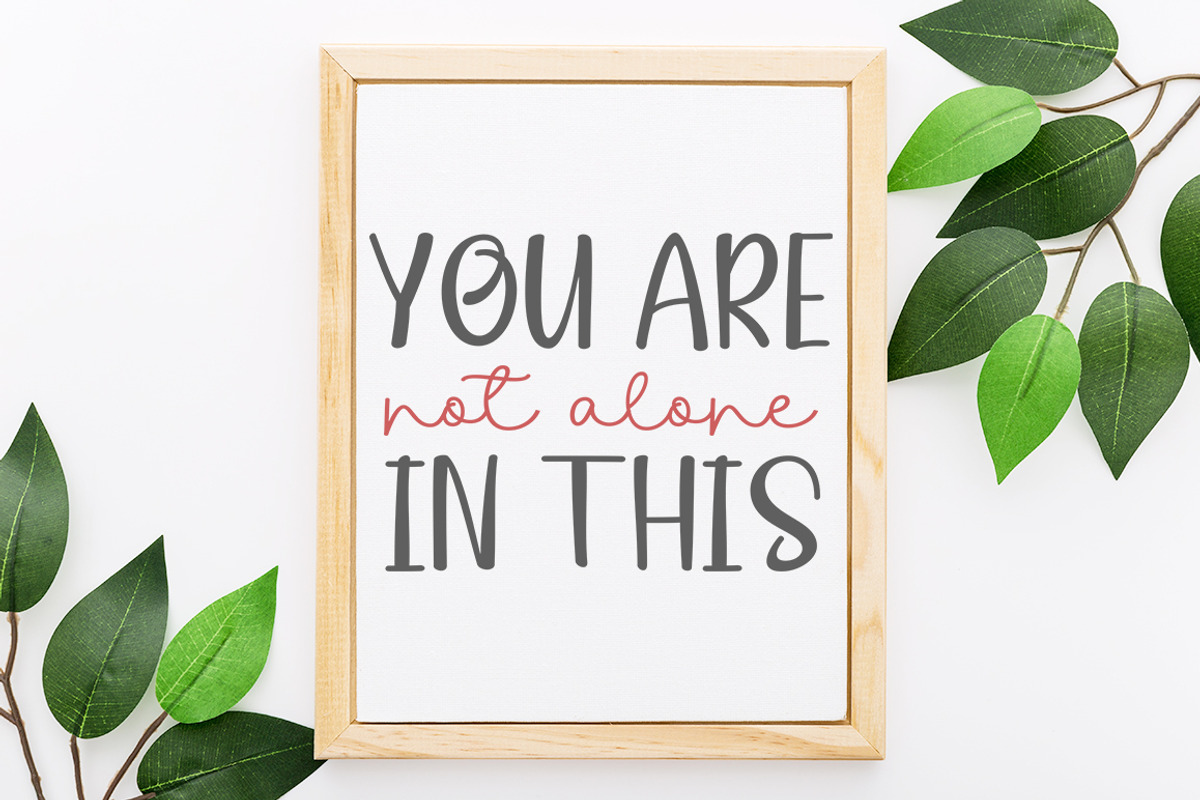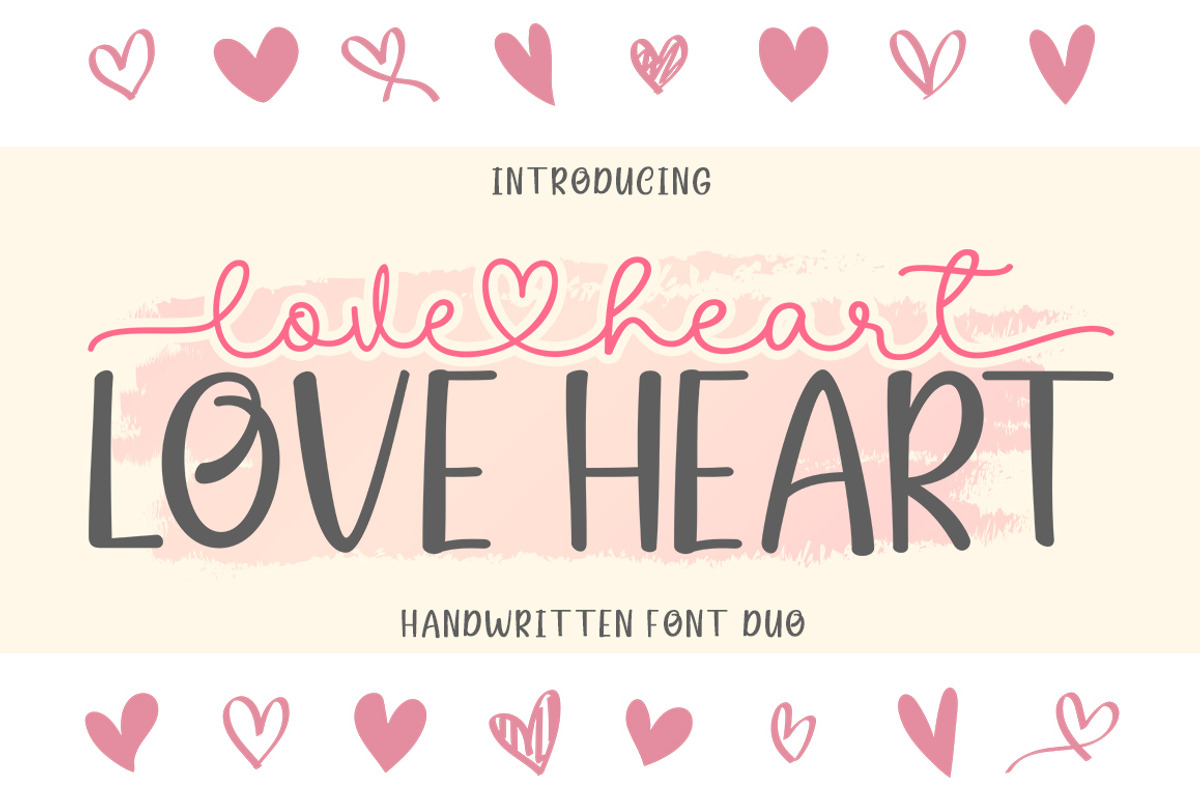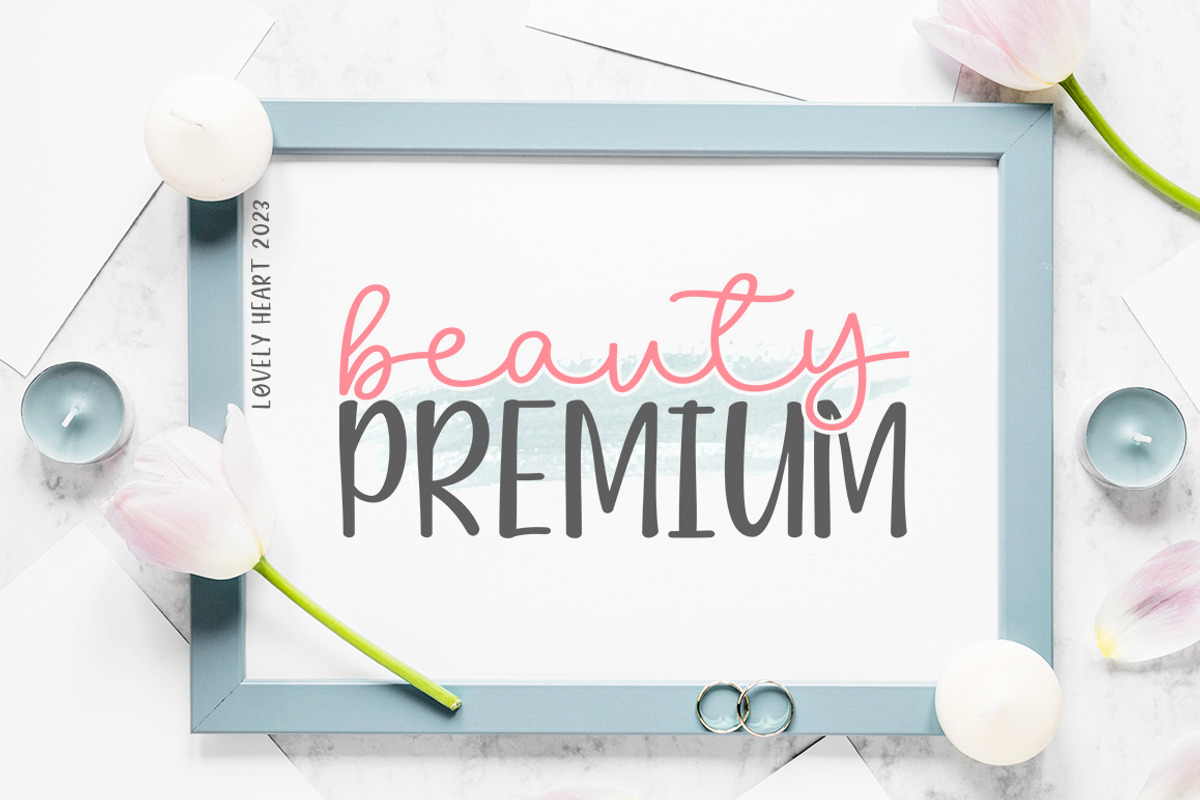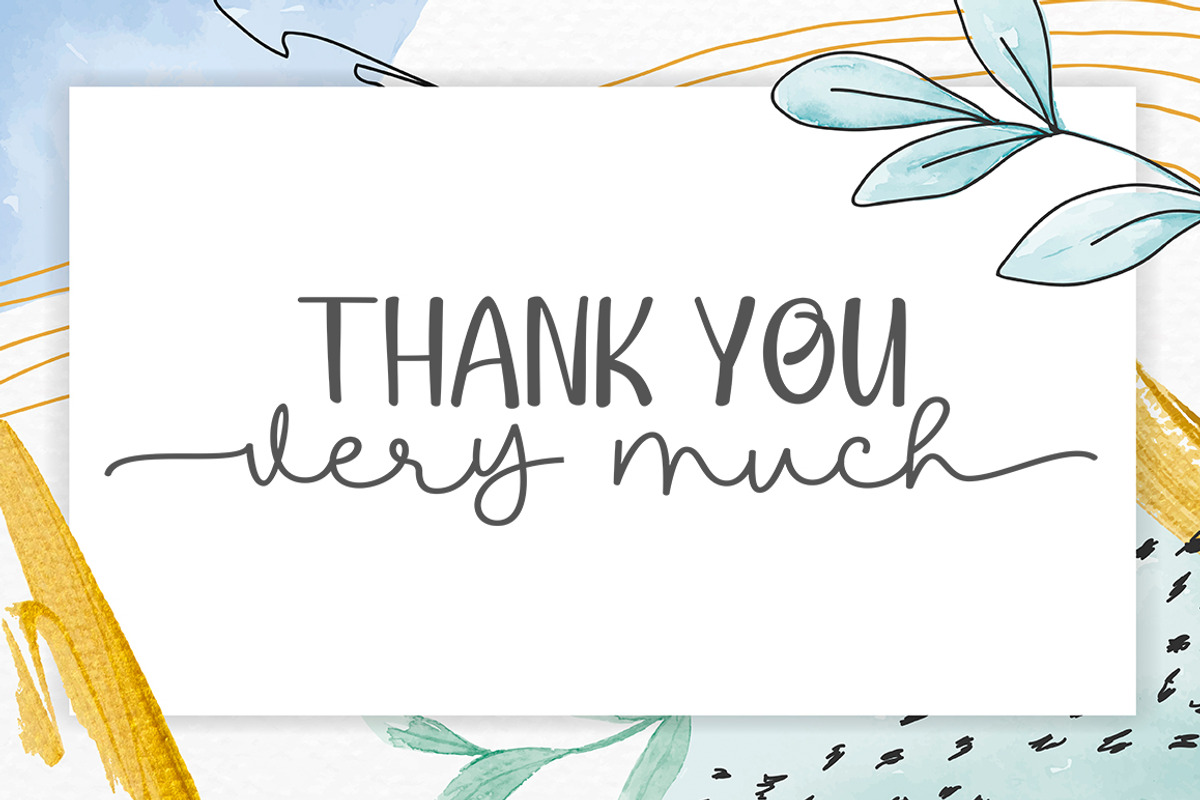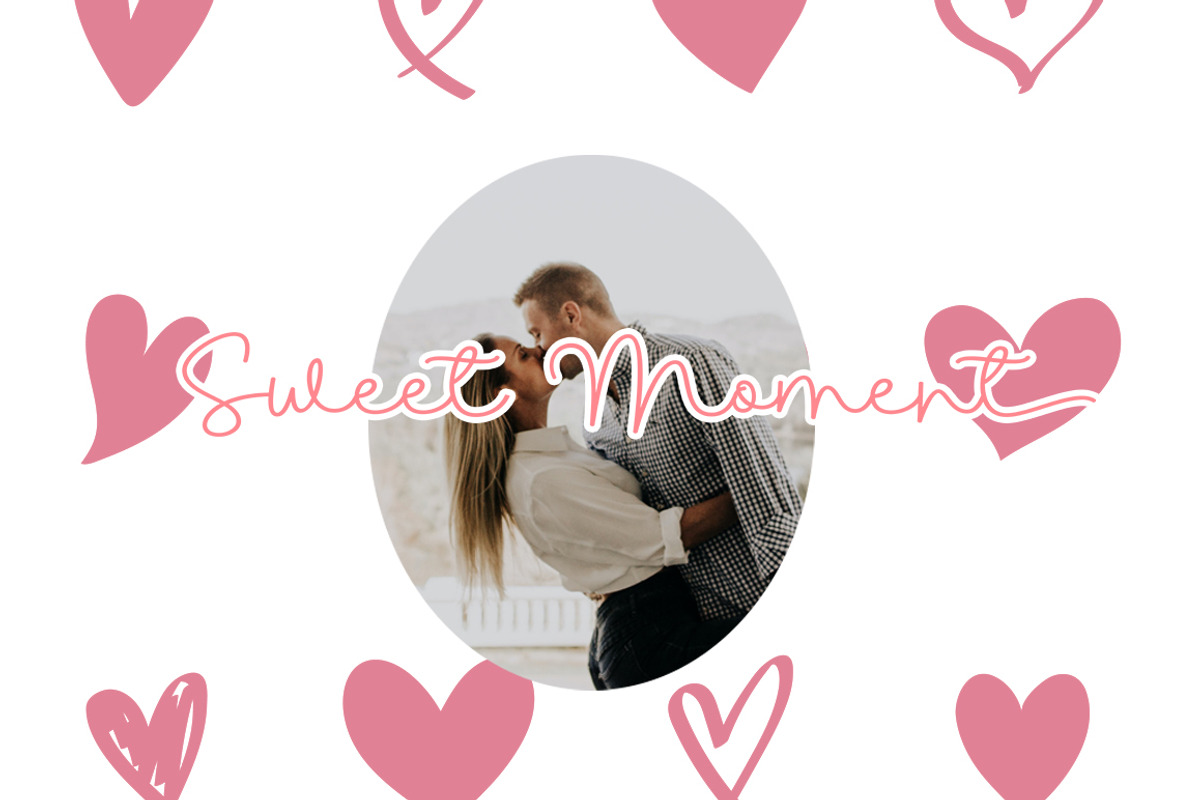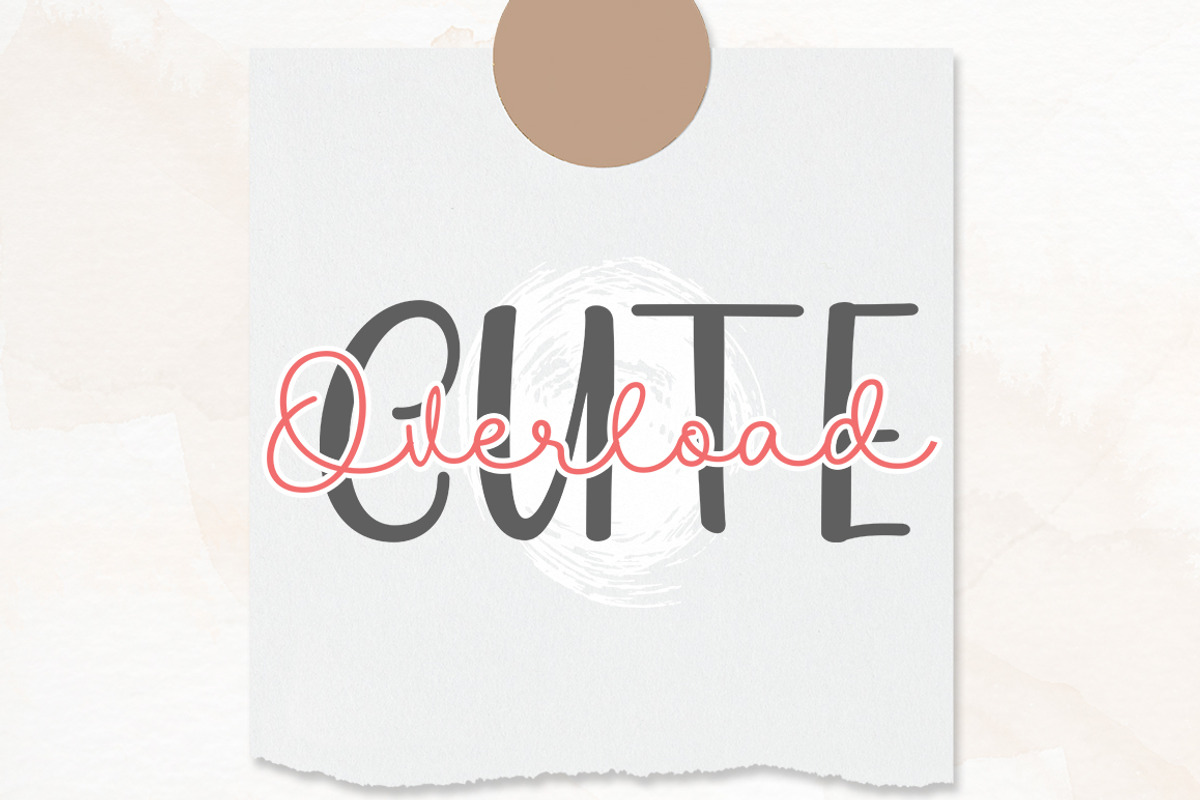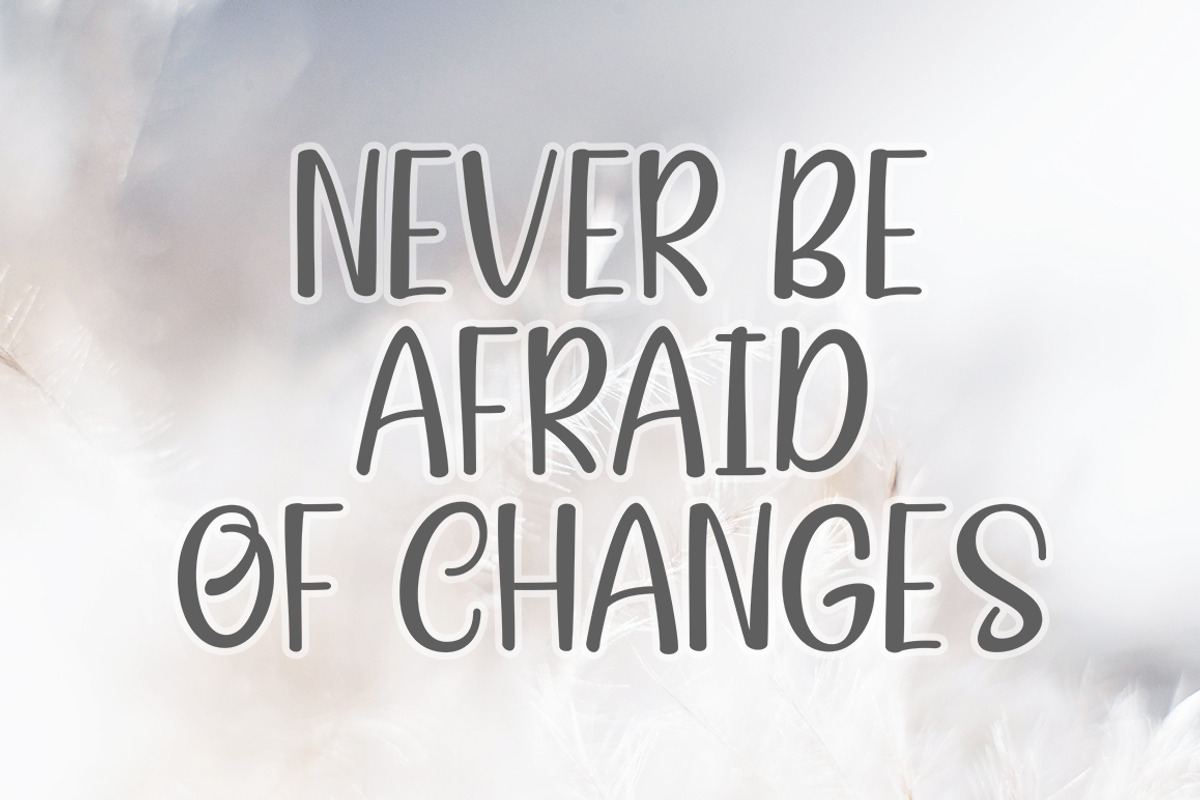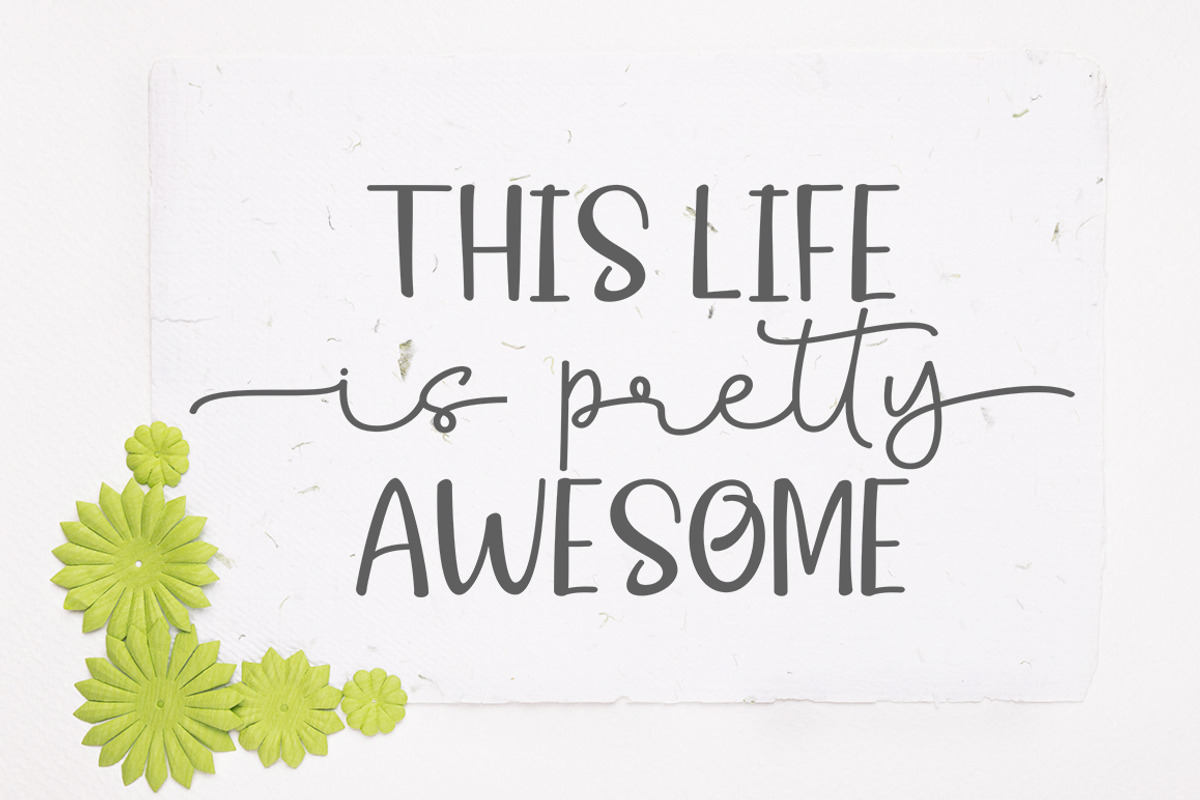
Love Heart Font Duo
Introducing
Love Heart the perfect font duo! He has a handwritten signature font and an all-capital font that goes well with him. Use it for logos, magazines, Instagram quotes, branding, advertising and more.
Love Heart - Signature font with lots of binding for that handwritten feel
Love Heart Sans - An all caps font that complements signature fonts perfectly